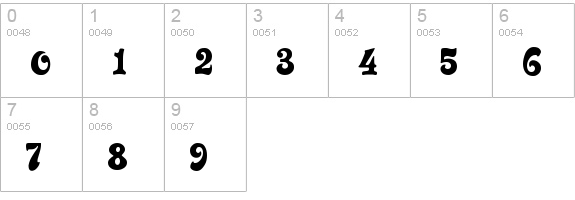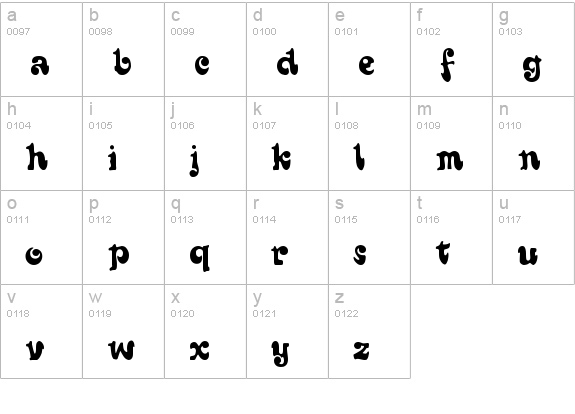
Sixties Regular Font Details
Sixties Regular is the standard, neutral variant in the Sixties typeface family \xE2\x80\x94 well suited to general body text, paragraphs, and standard typographic work.
Sixties Regular font is a captivating and stylish typeface that takes inspiration from the iconic typography of the 1960s. This retro font effortlessly brings back the groovy vibes and vibrant energy of that era, making it perfect for any design project that seeks to evoke a sense of nostalgia and fun. Featuring bold and rounded letterforms, Sixties Regular font exudes a playful and dynamic feel. Its unique design captures the essence of the swinging sixties, with its bold curves and exaggerated strokes. Whether you're working on a poster, logo, or any other creative endeavor, this font will instantly transport your audience back to the heyday of flower power and peace signs. One of the best things about Sixties Regular font is that it is free to download at FontsMarket.com. This means that you can easily access and use this amazing font without any hassle or cost. Whether you're a professional designer or a hobbyist, having access to high-quality fonts like Sixties Regular font can greatly enhance your creative projects. With its versatility and eye-catching appeal, Sixties Regular font is suitable for a wide range of applications. From retro-themed designs to music posters, party invitations, or even branding projects, this font will add a touch of vintage charm and personality to your work. Its legibility and clarity also make it a great choice for headlines or titles, ensuring that your message will be conveyed effectively. In conclusion, Sixties Regular font is a must-have for any design enthusiast who wants to add a touch of retro flair to their work. Its free availability at FontsMarket.com ensures that anyone can enjoy the benefits of this fantastic font. So why wait? Download Sixties Regular font today and let your creativity soar as you embrace the spirit of the swinging sixties.